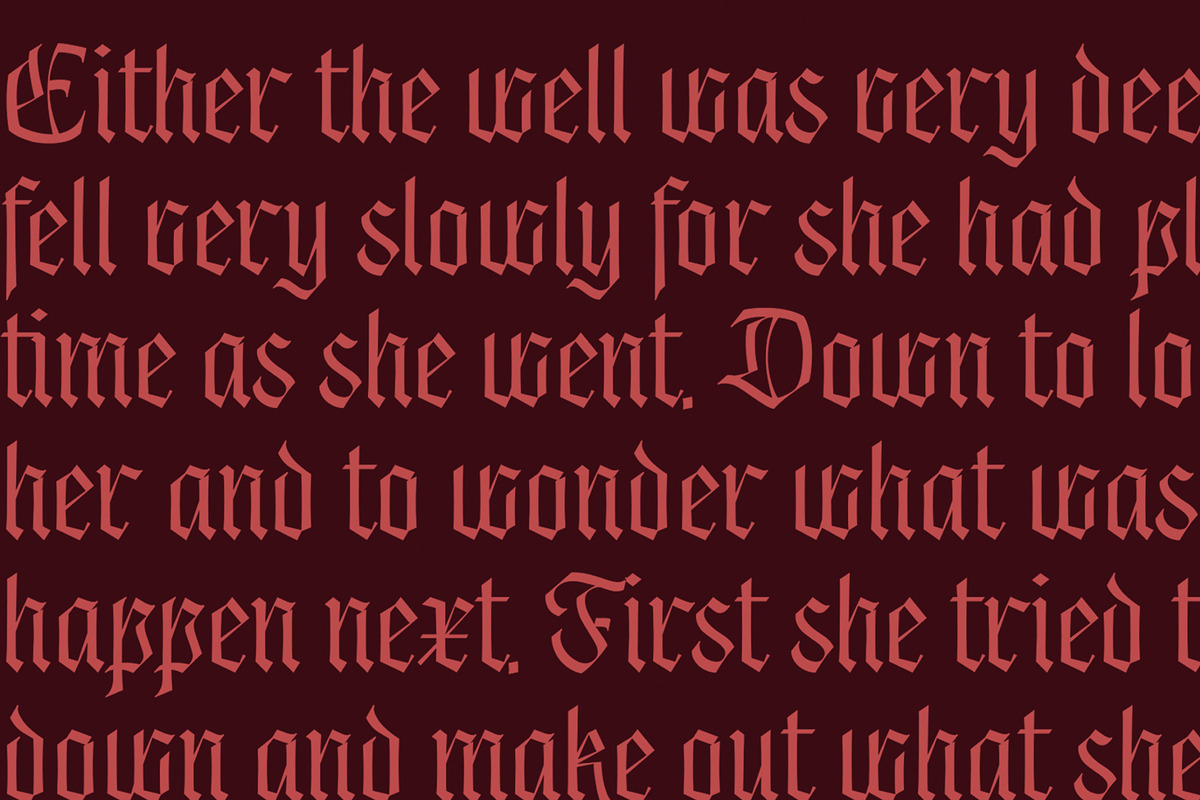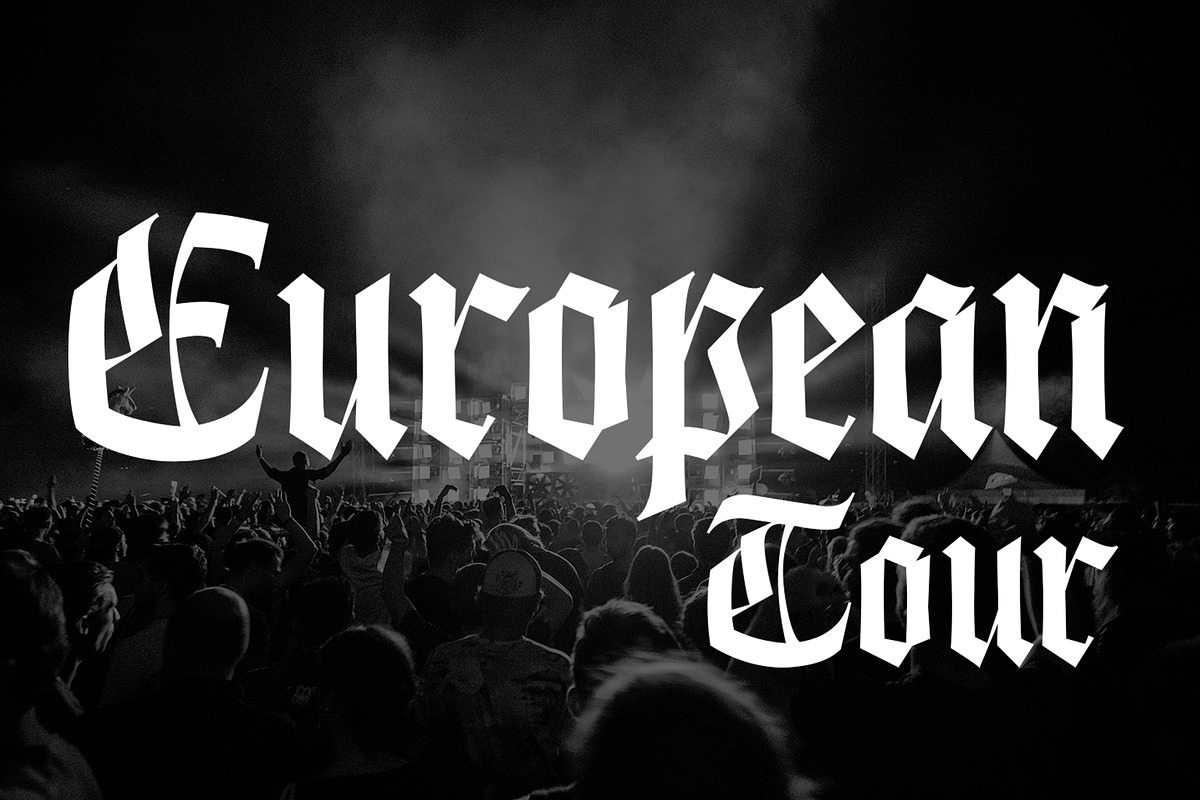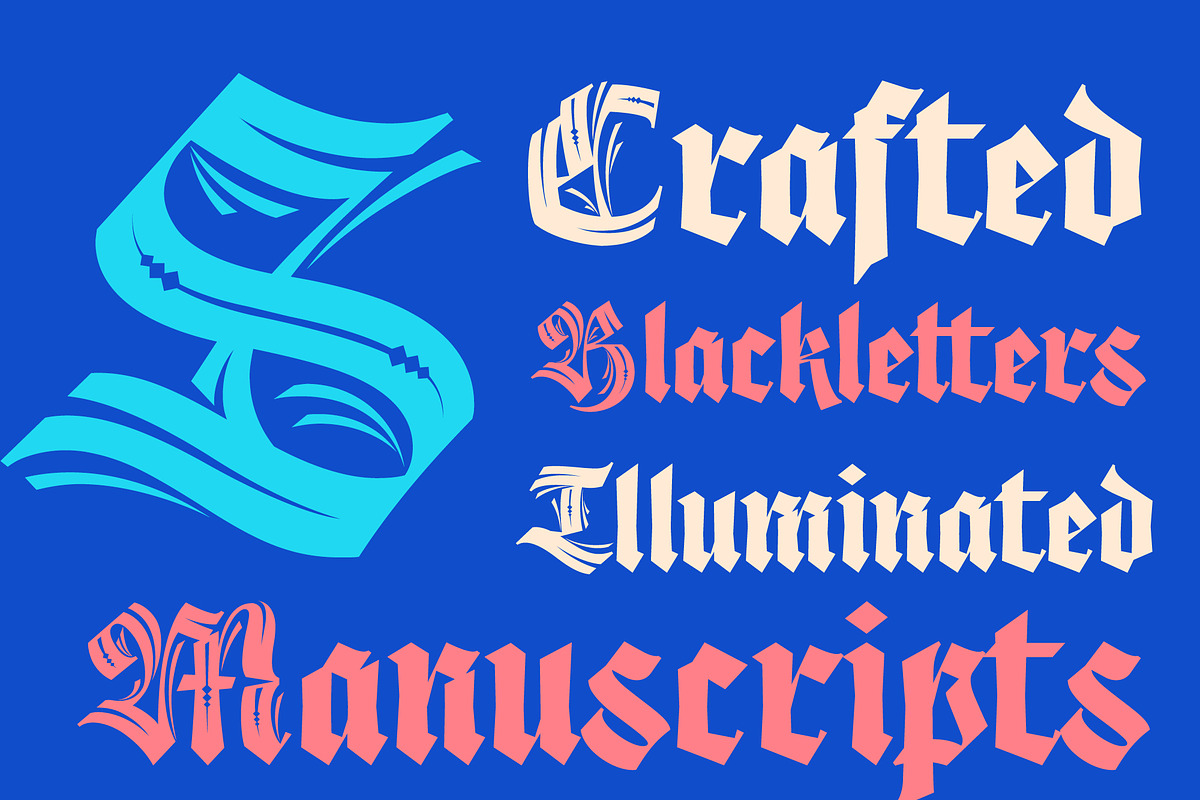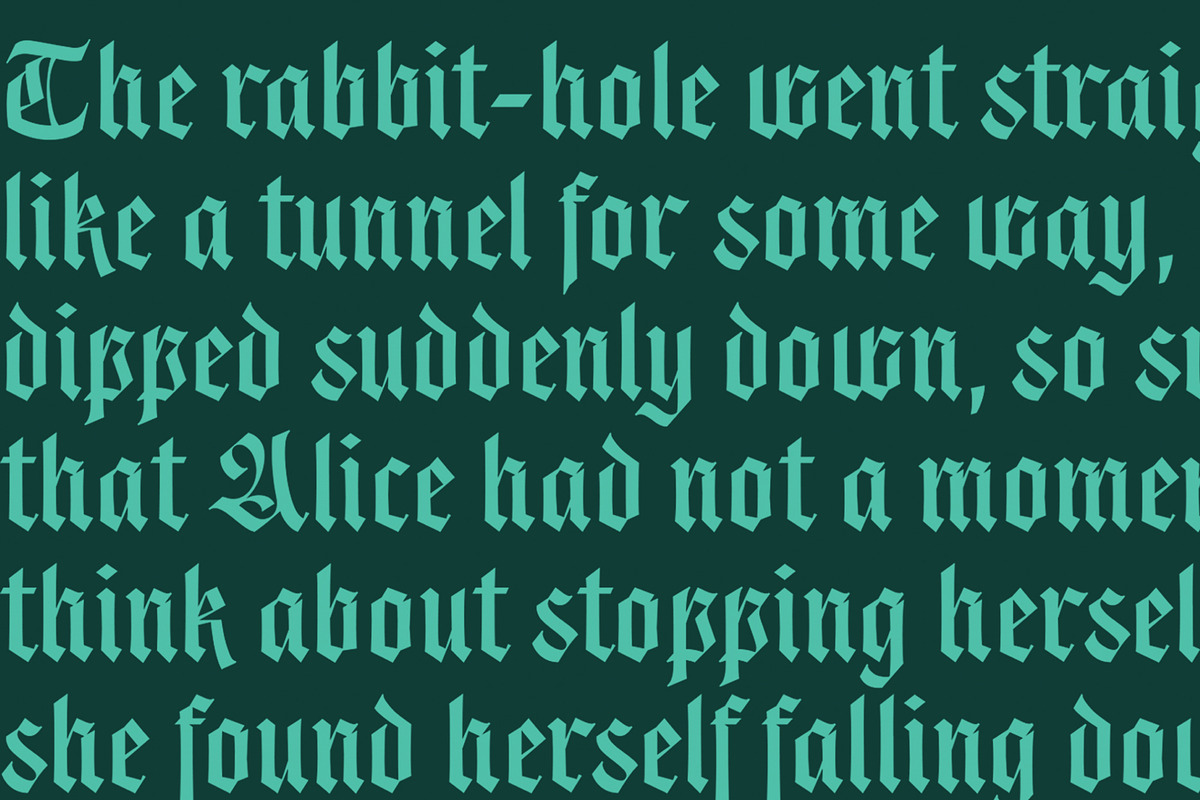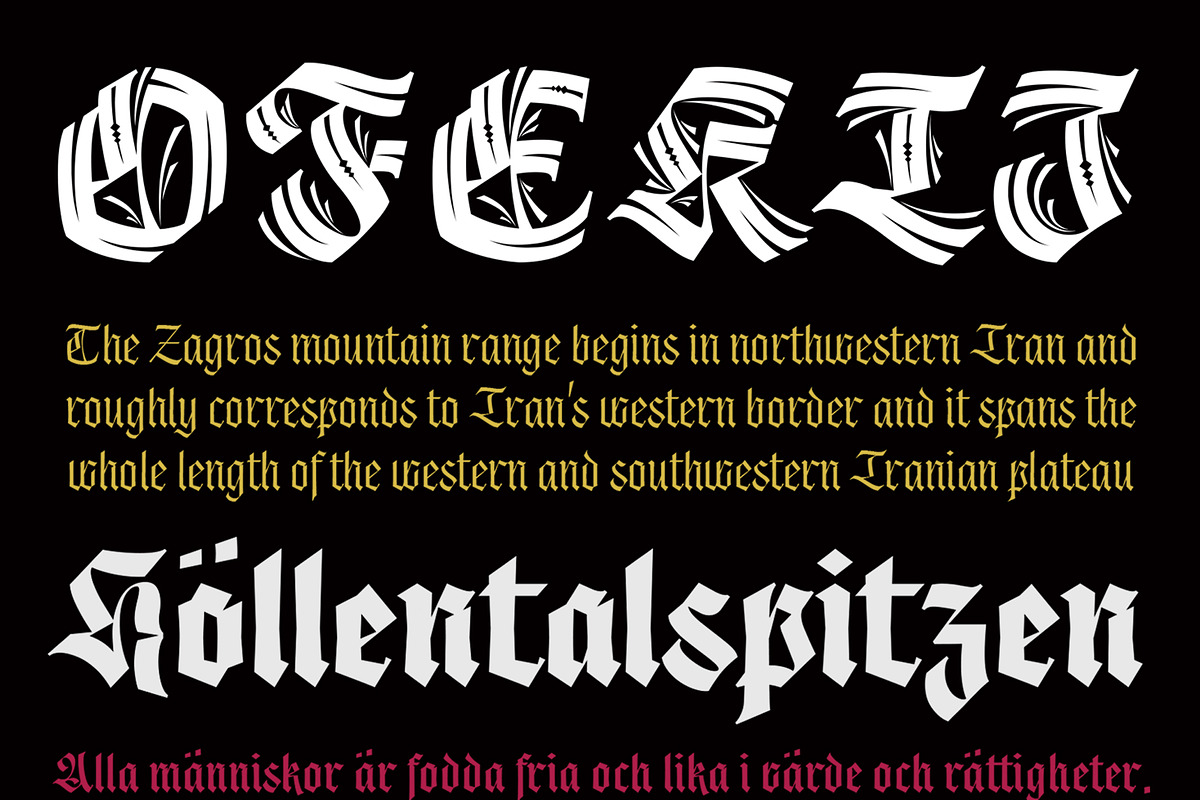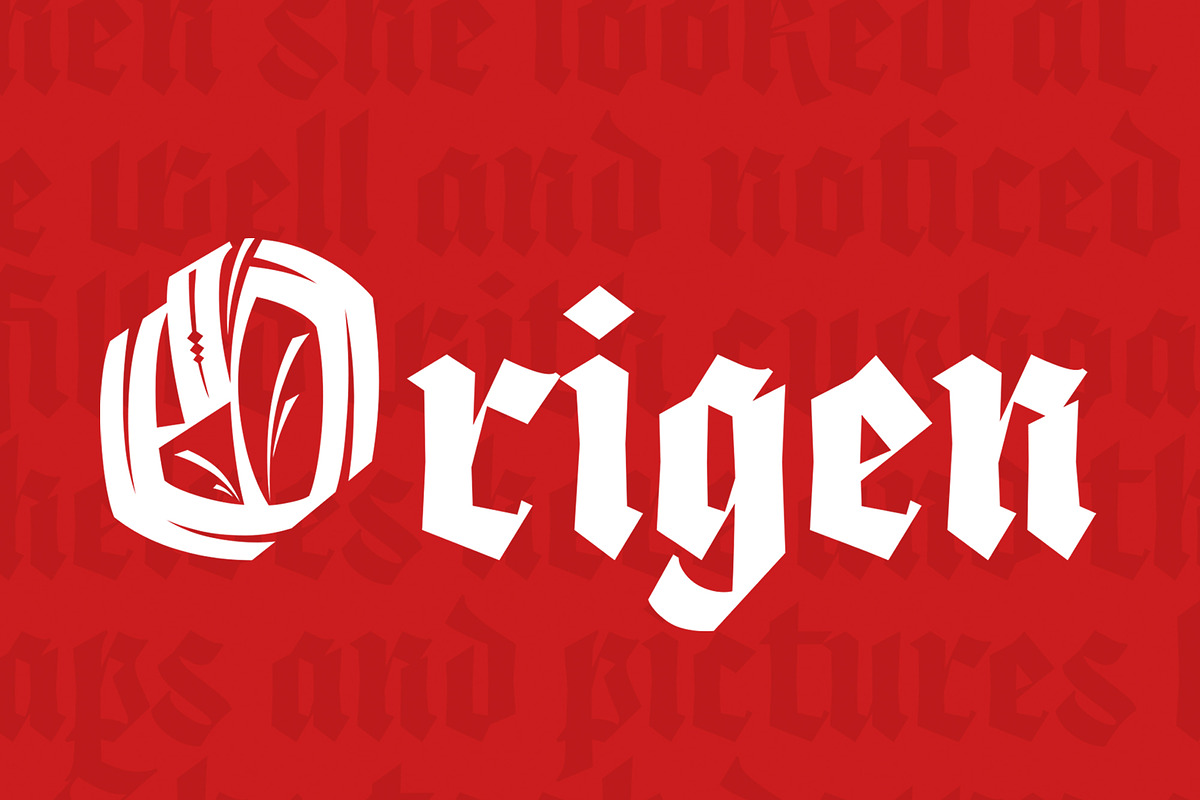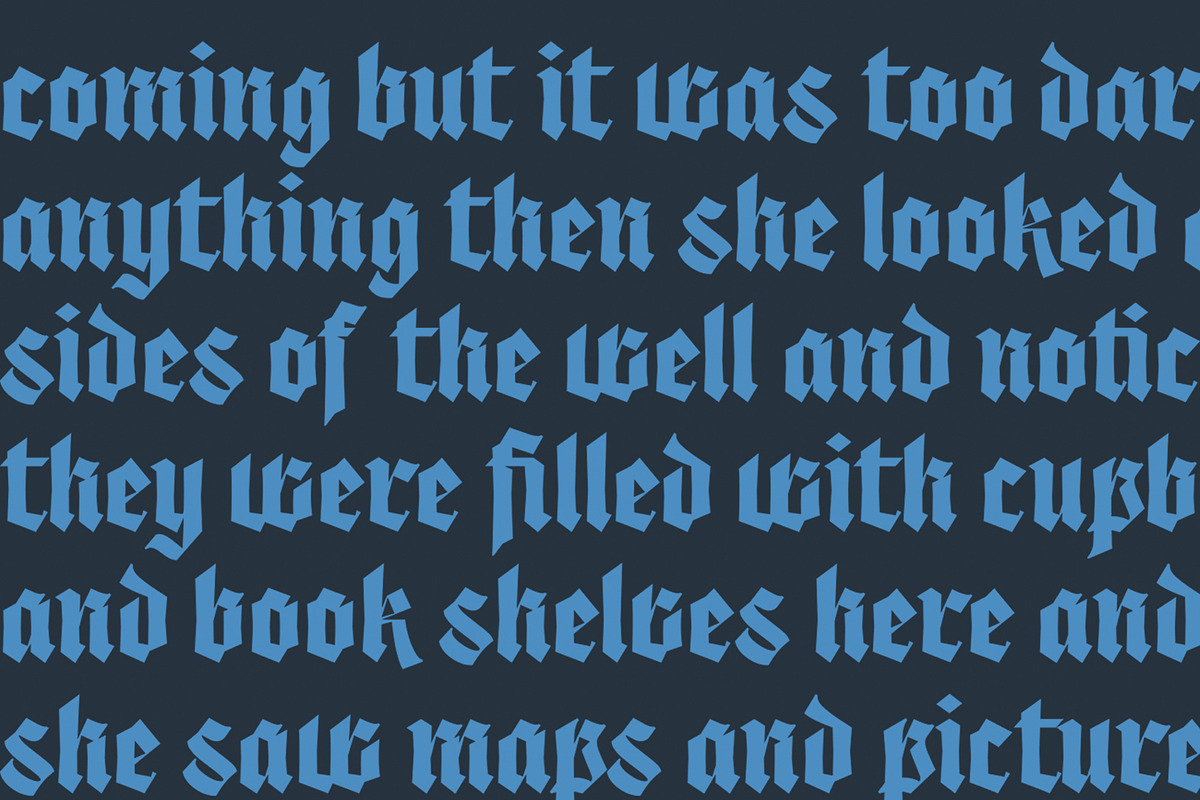
Origen Family Font
Origen is a typeface inspired by the illuminated manuscripts whereby the text is accompanied by a decorative capital letter at the start of the text. The family is formed by three different weights (light, regular, bold) and an additional decorative set of capital letters. Each of the four styles has characters to write in all Latin-based languages. It is an Open Type font.
The Origen family is a hybrid between Textura and Rotunda fonts, characterized by a dynamic calligraphic flow. Origen is also playful as it can be use in editorial, advertising and packaging designs to capture viewers' attention through refined details.